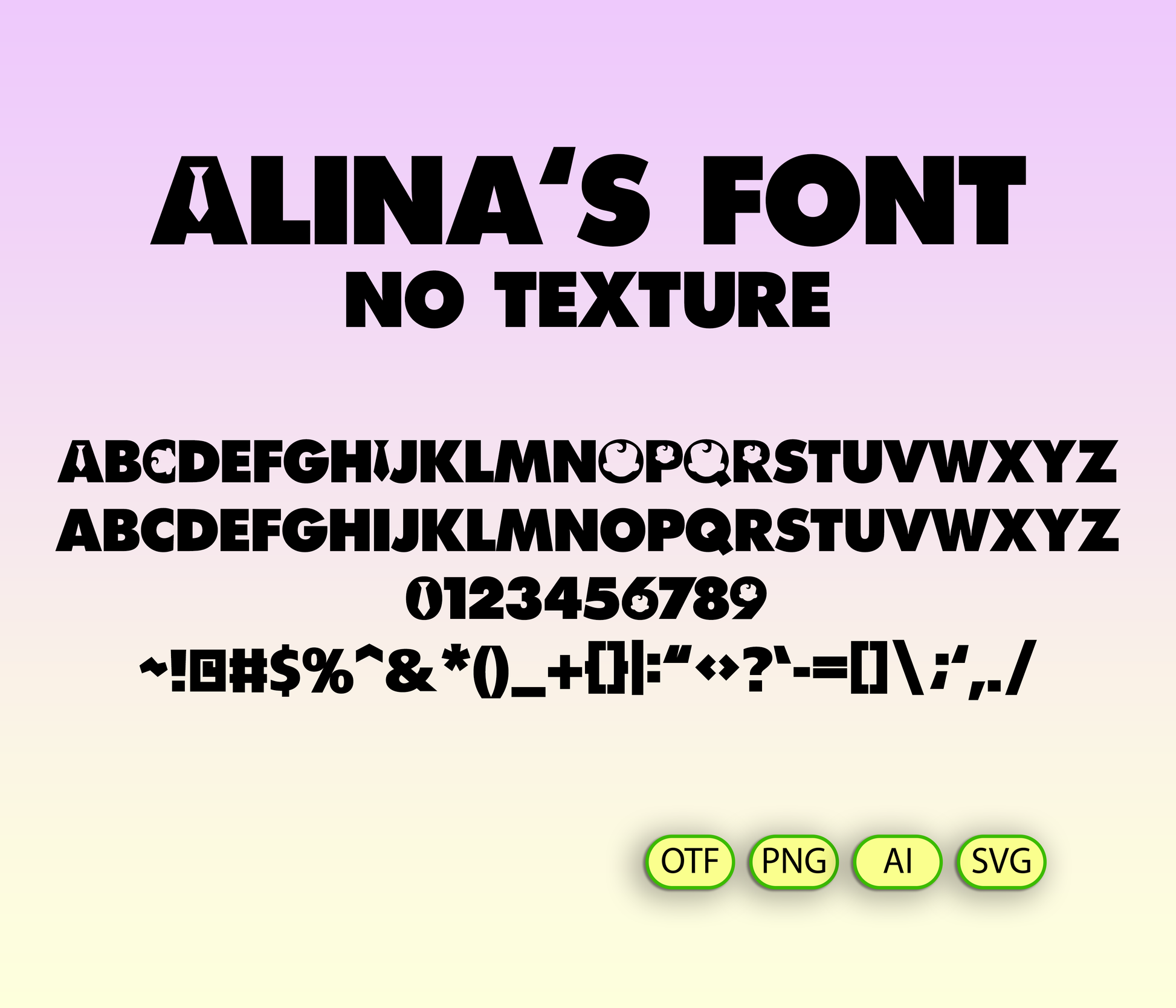
Executive Infant Font
Step into the adorable yet sophisticated world of a tiny corporate leader with our specially designed font. Capturing the perfect blend of playful innocence and boardroom authority, this typeface brings a unique charm to any project. Perfect for baby-related designs that need a touch of professional flair and humor.
Our Little CEO font features a delightful mix of professional structure and childlike whimsy, reflecting the unique duality of a business-minded baby. Perfect for:
1. Baby Shower Invitations: Create sophisticated yet playful announcements
2. Children's Room Decor: Design wall art and decorative elements
3. Birthday Party Materials: Themed invitations and party supplies
4. Digital Content: Enhance social media posts and websites
5. Nursery Business Branding: Perfect for daycare and children's services
6. Gift Items: Design custom presents and keepsakes
7. Educational Materials: Create engaging learning resources
Creative Applications
Whether you're planning a baby-themed event, creating educational content, or designing nursery decorations, this font brings the perfect combination of cuteness and corporate charm. Transform your projects with a typeface that speaks to both the playful and professional sides of childhood leadership.